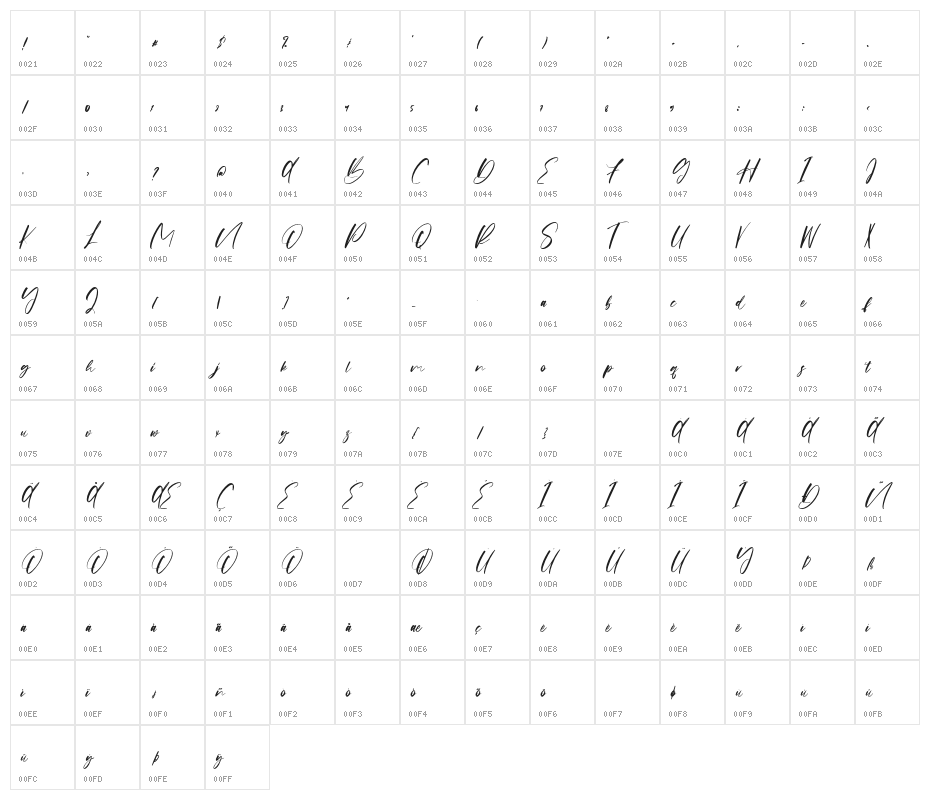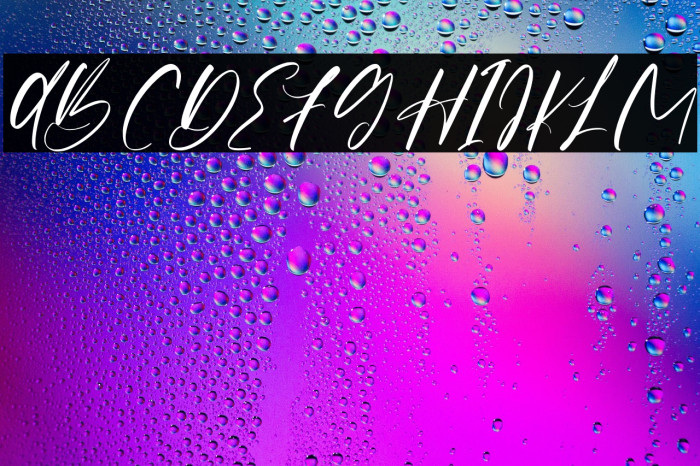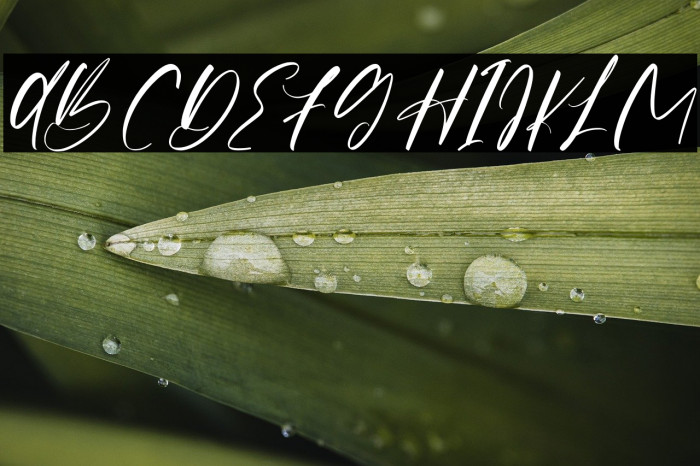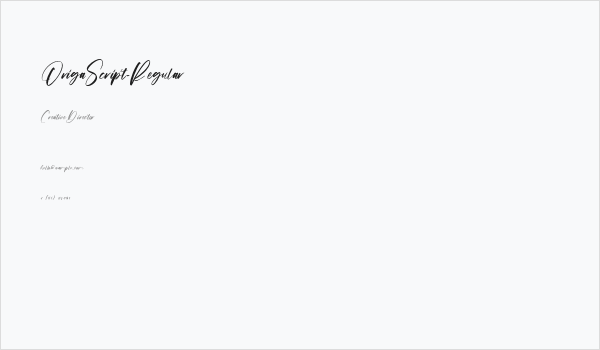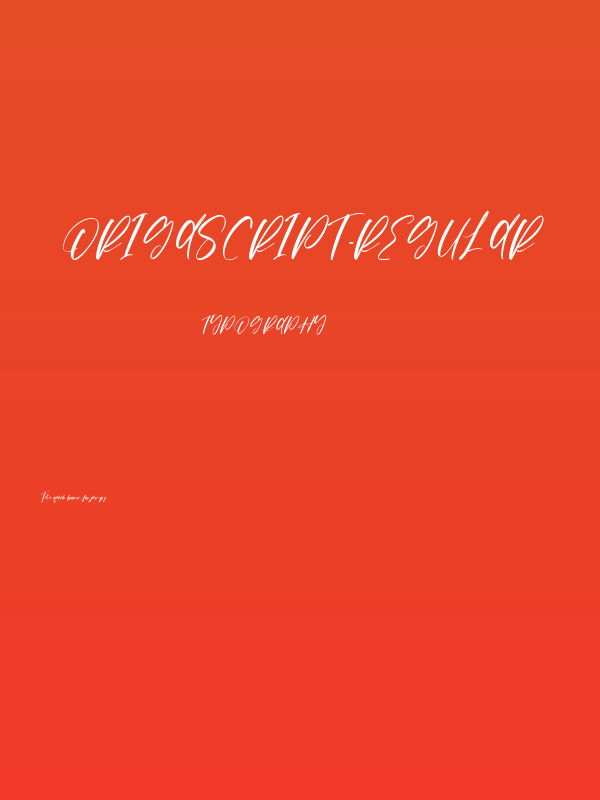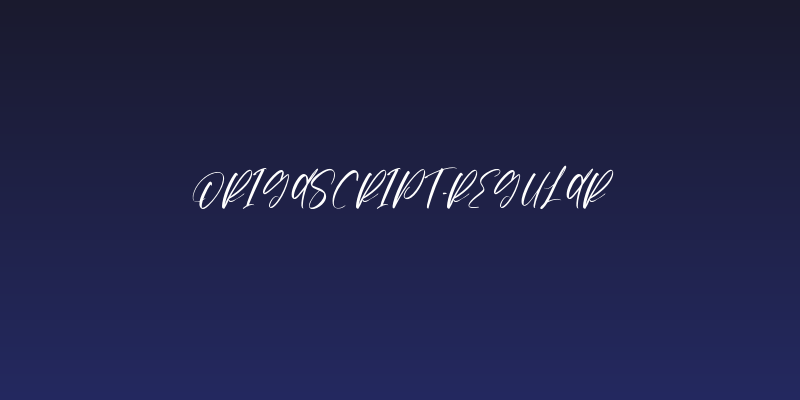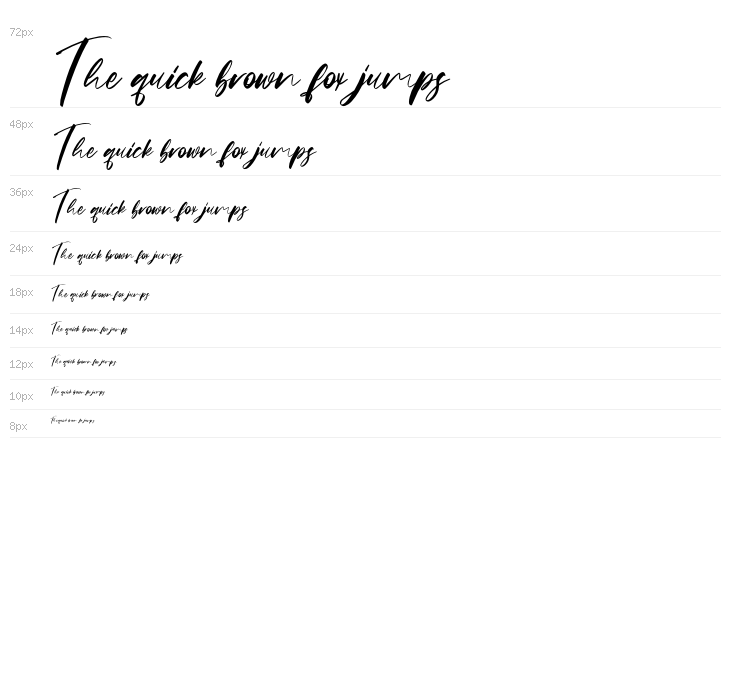
OrigaScript-Regular Font
OrigaScript-Regular Description
This font exudes a dynamic and artistic flair, characterized by its fluid and expressive strokes. The letters are crafted with a sense of movement, giving them a lively and spontaneous appearance. The uppercase letters are bold and sweeping, while the lowercase letters maintain a consistent flow, enhancing the script's elegance. The numerals and special characters are designed to complement the overall style, maintaining the same fluidity and expressiveness. This font is ideal for projects that require a personal touch, such as invitations, greeting cards, and branding materials.
| Use Case | Logos, Headlines, Artistic projects |
| Proposed Projects | Ideal for invitations, greeting cards, branding, and artistic projects. |